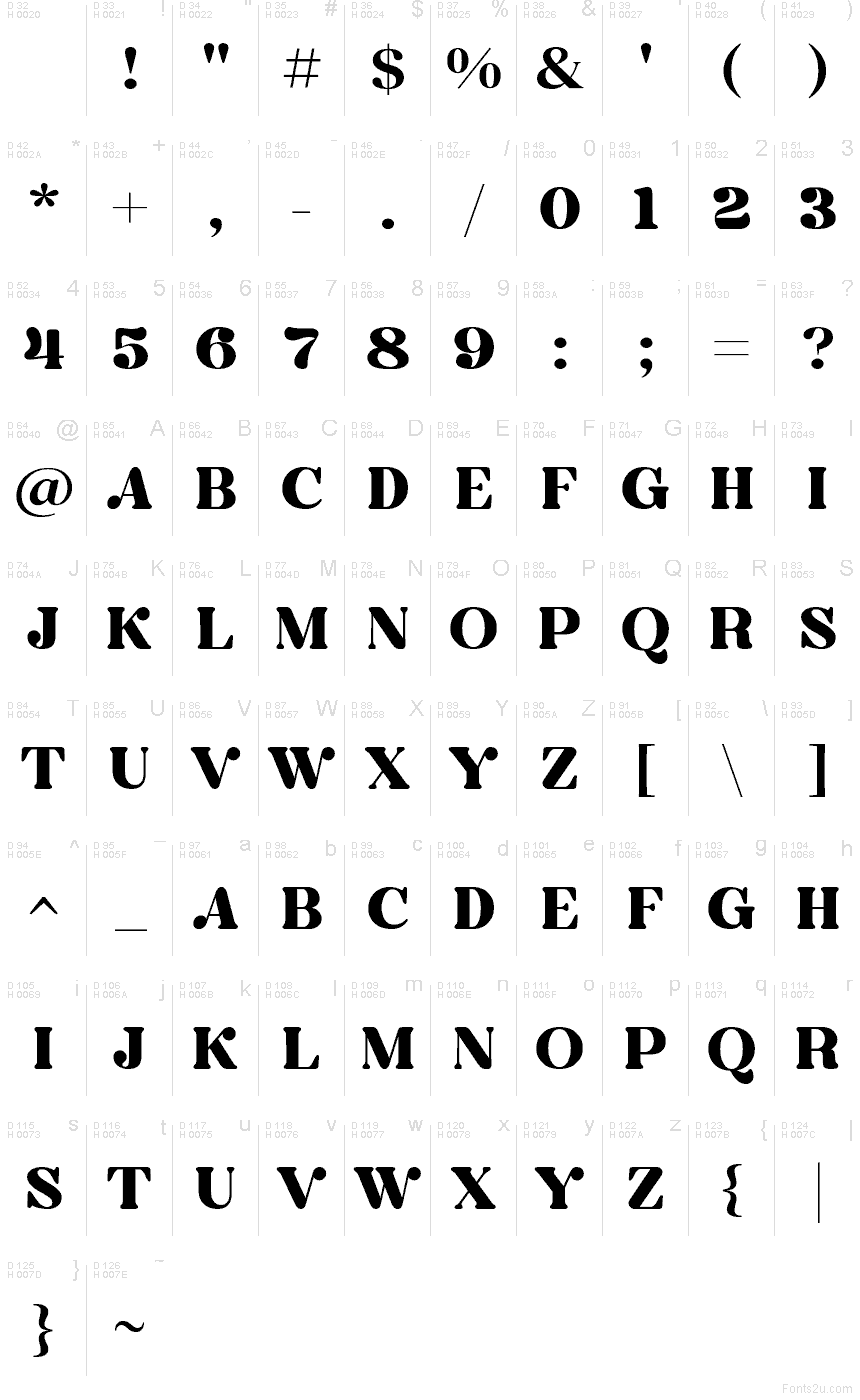
QUSTY
Qusty font by Graphicxell is a free retro serif typeface with a bold, inky presence and wonderfully chunky curves. Its wide, rounded forms and playful ball-like terminals give every word a sense of swagger, as if it were pulled from a sun-faded poster in a 70s record shop. Thick strokes and tight spacing create a dense, tactile texture that grabs attention in just a few letters.
Using Qusty, this free font shines on vintage-inspired posters, boutique logos, packaging, book covers, album art, and bold social graphics. The letters feel hefty yet stylish, making short phrases and brand names look instantly iconic. For balance, pair Qusty with a simple geometric sans-serif at smaller sizes, letting this retro serif handle the big, statement-making headlines.